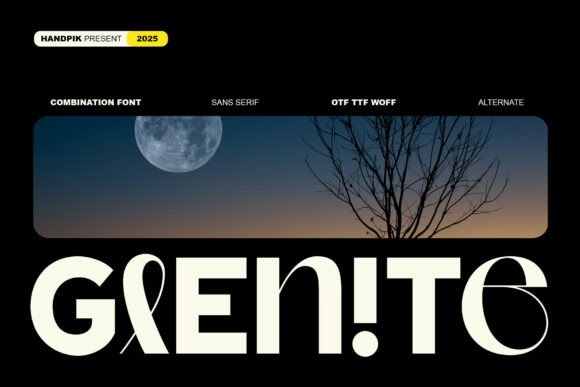
Glenite Font: Elevate Your Design with a Modern Display Font
In the world of typography, fonts play a crucial role in conveying the tone and personality of a brand or design. With the numerous font options available, finding the perfect one that stands out from the crowd can be a daunting task. However, if you’re looking for a modern display font that exudes sleekness, style, and creativity, look no further than Glenite Font. In this article, we’ll dive into the features, benefits, and uses of Glenite Font, and explore how it can elevate your design to new heights.
What is Glenite Font?
Glenite Font is a modern display font that seamlessly fuses sleek sans serif structure with stylish, artistic alternates. Its clean lines are complemented by striking character shapes and creative ligatures, giving your headlines, posters, or editorial layouts a high-fashion edge. With its contemporary and experimental vibe, Glenite Font is ideal for bold branding and eye-catching digital design.
Key Features of Glenite Font
- Sleek Sans Serif Structure: Glenite Font boasts a clean and minimalist sans serif structure, making it perfect for modern designs that require a touch of sophistication.
- Stylish Artistic Alternates: The font features stylish artistic alternates that add a creative twist to your text, allowing you to experiment with different styles and moods.
- Striking Character Shapes: Glenite Font’s character shapes are designed to make a statement, with bold and striking features that grab attention.
- Creative Ligatures: The font includes creative ligatures that add a touch of elegance and refinement to your text.
Benefits of Using Glenite Font
Glenite Font offers numerous benefits for designers, marketers, and businesses looking to elevate their design. Some of the key benefits include:
- Unique and Memorable: Glenite Font’s distinctive style makes it easy to create unique and memorable designs that stand out from the competition.
- Versatile: The font is versatile and can be used for a wide range of design projects, from headlines and posters to editorial layouts and digital designs.
- High-Fashion Edge: Glenite Font’s high-fashion edge makes it perfect for luxury brands, fashion designers, and lifestyle businesses looking to convey a sense of sophistication and style.
- Easy to Read: Despite its bold and artistic features, Glenite Font remains easy to read, making it perfect for body text and longer-form content.
Uses of Glenite Font
Glenite Font is a versatile font that can be used for a wide range of design projects, including:
- Headlines and Titles: Use Glenite Font to create bold and eye-catching headlines and titles that grab attention.
- Posters and Flyers: The font is perfect for creating striking posters and flyers that showcase your brand or message.
- Editorial Layouts: Glenite Font can be used to add a touch of sophistication and style to editorial layouts, such as magazines and newspapers.
- Digital Design: The font is ideal for digital designs, including social media graphics, website headers, and mobile app interfaces.
- Branding and Identity: Use Glenite Font to create a unique and memorable brand identity that stands out from the competition.
Tips for Using Glenite Font
To get the most out of Glenite Font, here are some tips to keep in mind:
- Use it Boldly: Glenite Font is designed to make a statement, so don’t be afraid to use it boldly and prominently in your design.
- Experiment with Alternates: The font’s artistic alternates offer a range of creative possibilities, so experiment with different styles and moods to find the one that works best for your design.
- Pair it with Other Fonts: Glenite Font can be paired with other fonts to create a unique and memorable typography combination.
- Pay Attention to Kerning: As with any font, pay attention to kerning and tracking to ensure that your text looks professional and polished.
In conclusion, Glenite Font is a modern display font that offers a unique and stylish solution for designers, marketers, and businesses looking to elevate their design. With its sleek sans serif structure, stylish artistic alternates, striking character shapes, and creative ligatures, Glenite Font is perfect for bold branding and eye-catching digital design. Whether you’re looking to create headlines, posters, editorial layouts, or digital designs, Glenite Font is a versatile and memorable font that is sure to make a statement.